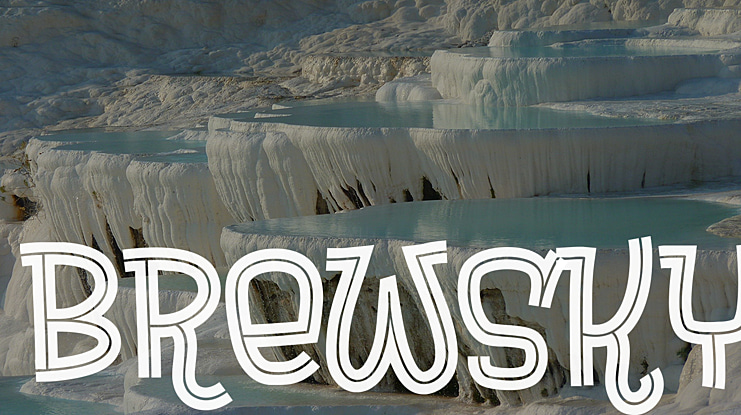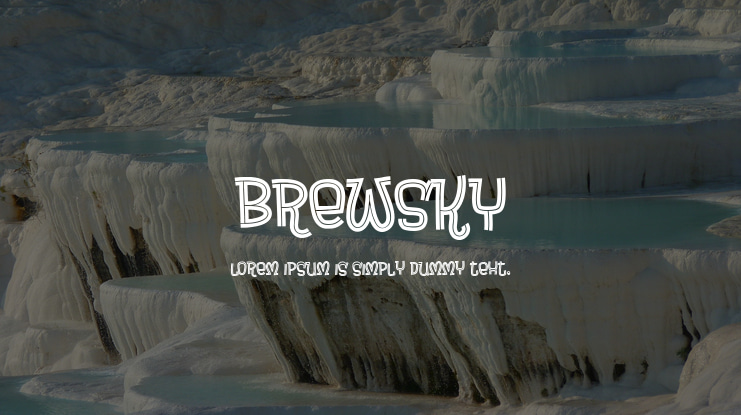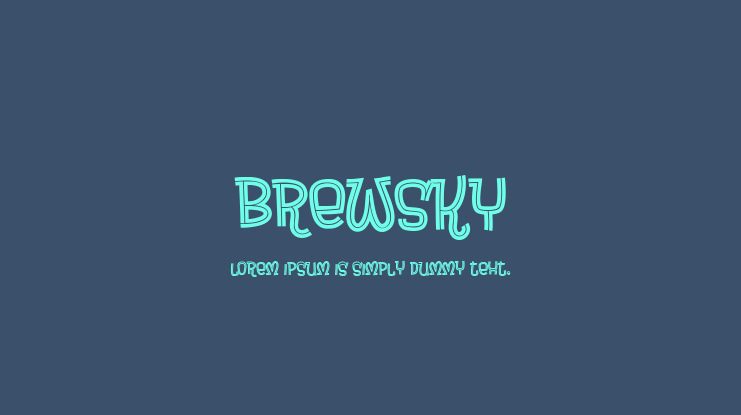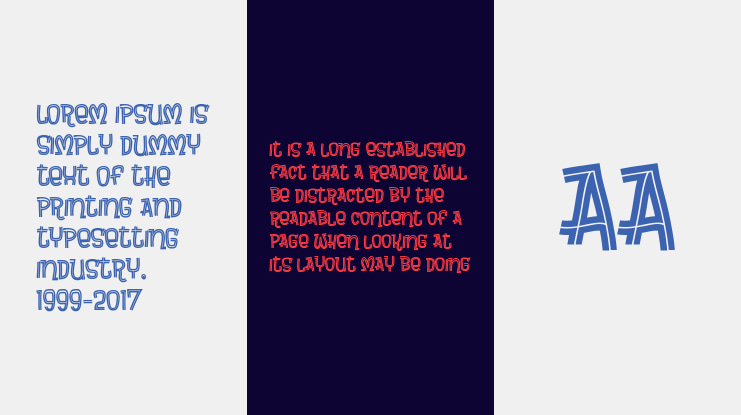
Brewsky Font
I wanted to make a font that looked like it could be used in a sixties ad for chewing gum. (And by the time I finished it I was thirsty, hence the name.)
I like the way it turned out, even if I do say so myself.